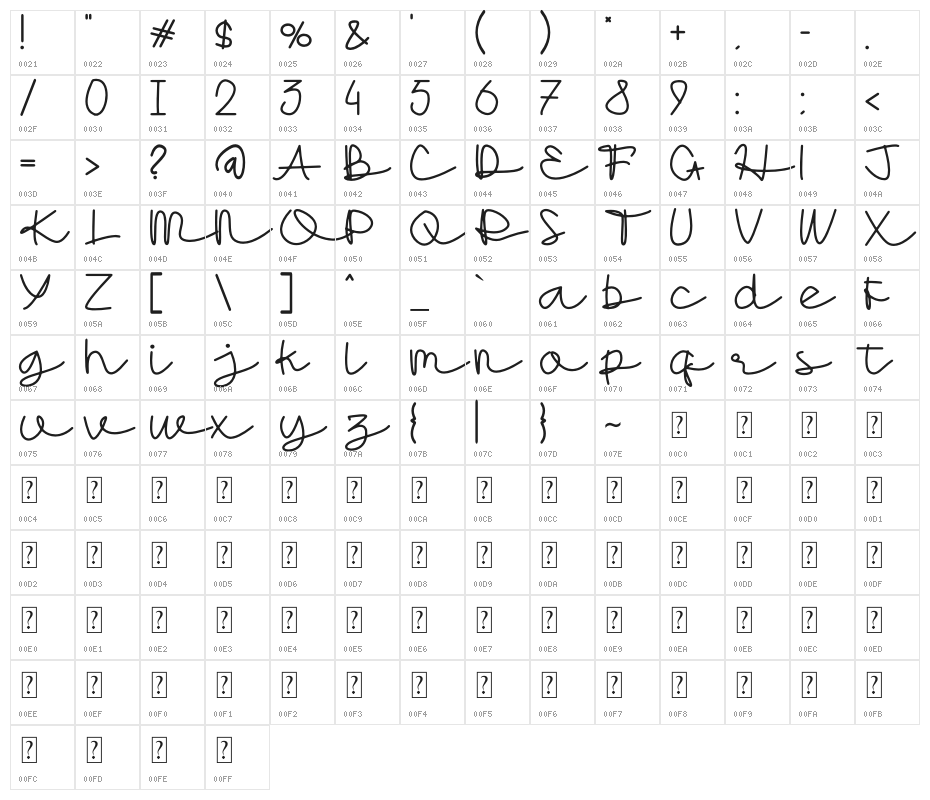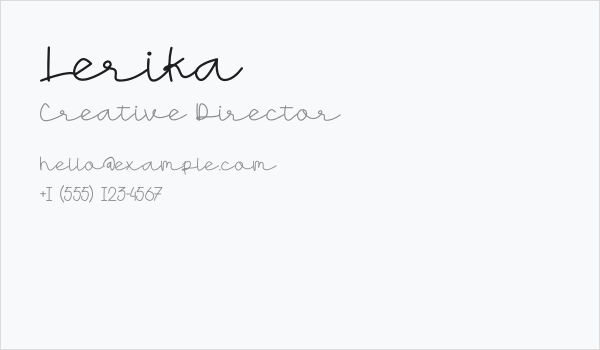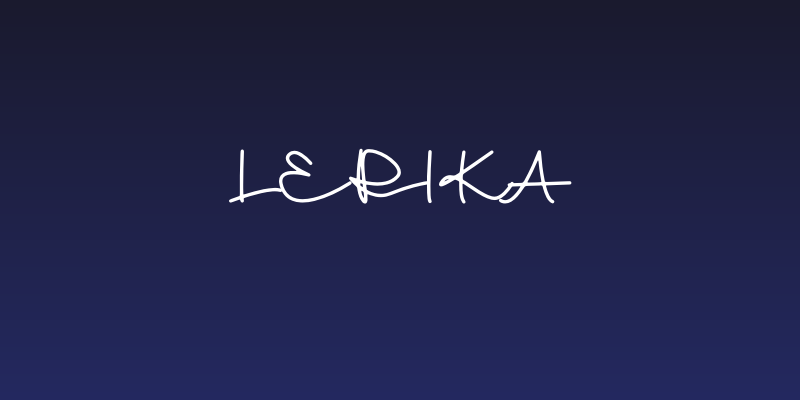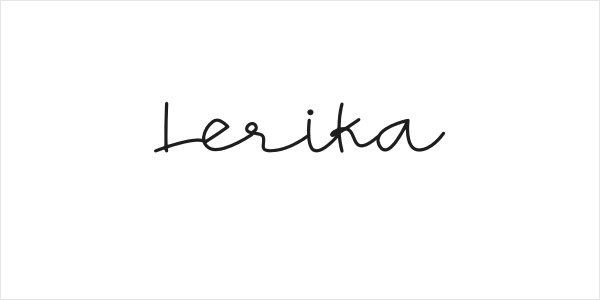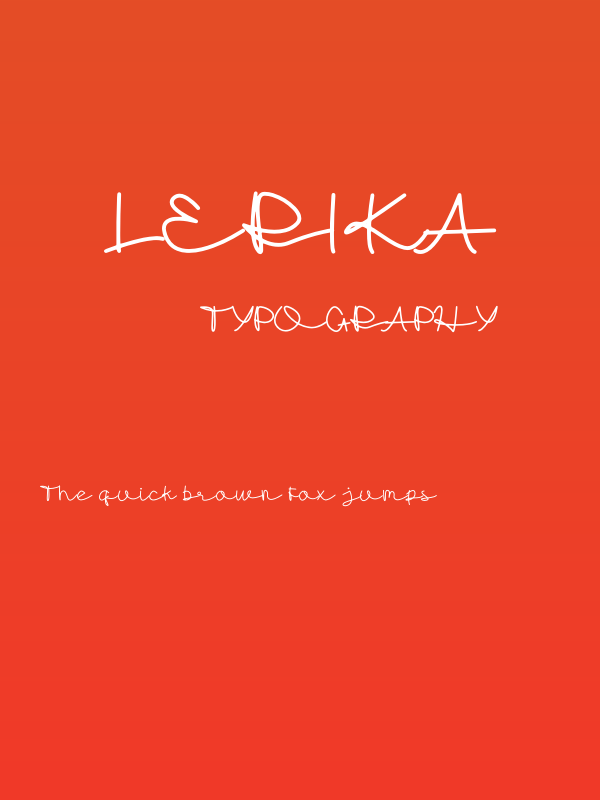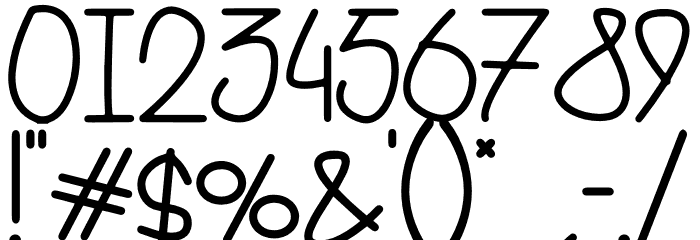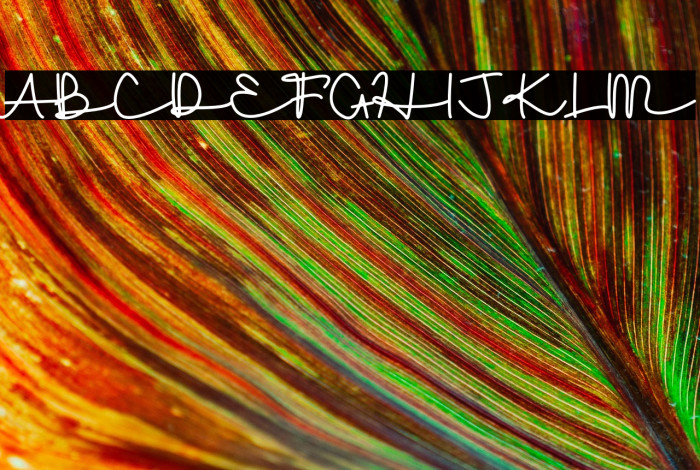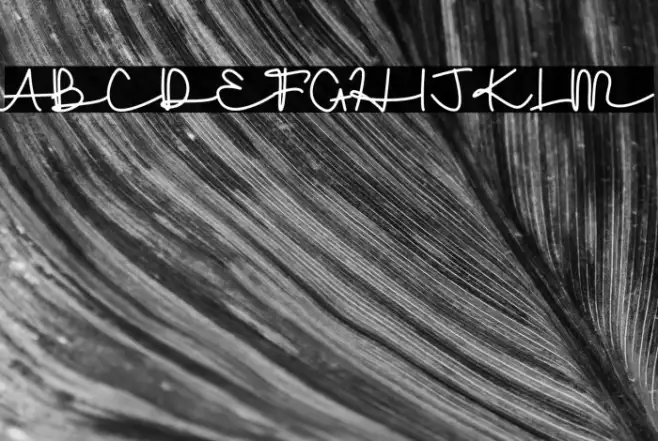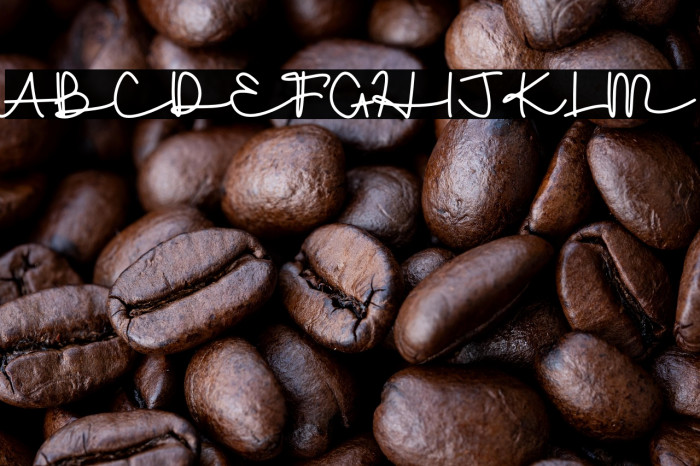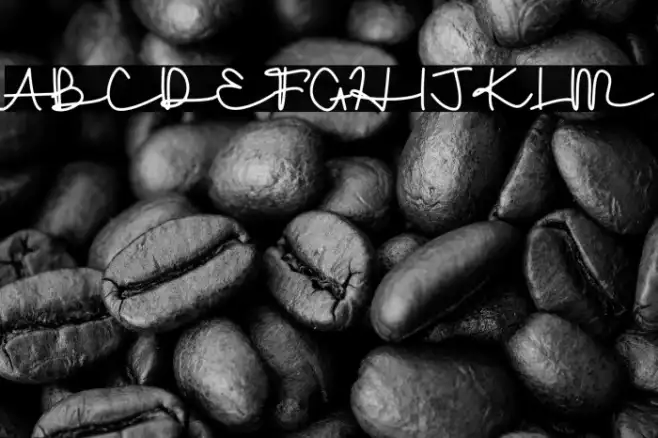
Lerika Font
Lerika Description
This font features a playful and casual handwritten style, characterized by its fluid and connected letterforms. The uppercase letters are slightly more structured, while the lowercase letters exhibit a more relaxed and flowing appearance. The numbers maintain the same playful aesthetic, with a slight tilt that adds to the overall informal feel. Special characters are designed to match the whimsical nature of the font, making it suitable for creative and informal projects. The strokes are consistent in thickness, providing a balanced and cohesive look across all characters.
| Proposed Projects | Ideal for greeting cards, invitations, personal branding, and creative projects that require a friendly and approachable touch. |